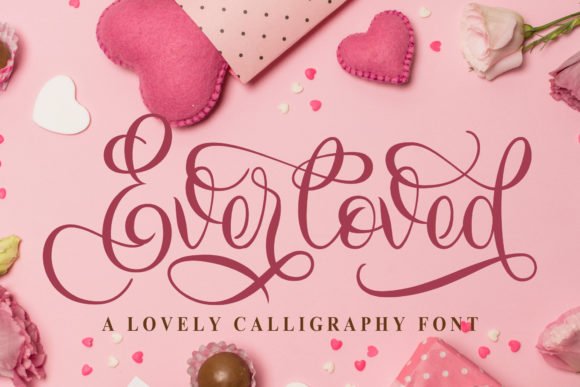
The Ultimate Design Companion: Everloved Font
You know that moment when you’re brainstorming ideas for a design project and suddenly, everything clicks into place? You envision a beautiful, elegant font that perfectly captures the essence of your concept. For designers, finding the right font can be a game-changer, and that’s exactly where the Everloved Font comes in.
This modern calligraphy font is a loving tribute to the classic scripts of the past, with a fresh and modern twist that’s sure to elevate any design project. Whether you’re working on a wedding invitation, a logo, or a social media campaign, the Everloved Font is the perfect companion to help you create something truly special.
What makes the Everloved Font so valuable for designers is its unique blend of style and versatility. With its elegant, flowing lines and subtle flair, it’s the perfect choice for any project that requires a touch of sophistication and whimsy.
Everloved Font Key Features
- Font Family: Everloved Font offers a range of 6 fonts, including Everloved, Everloved Bold, Everloved Italic, Everloved Bold Italic, and two additional weights.
- Character Set: Supports a wide range of languages, including Latin, Cyrillic, and Greek alphabets, making it suitable for global design projects.
- Unique Characteristics: The Everloved Font features a unique, hand-drawn style with subtle imperfections, giving it a warm and personal touch, perfect for branding, advertising, and editorial design.
Everloved Font Review
As a designer, I’ve had the chance to work with the Everloved font, and I must say it’s been a mixed bag. ✨ On the positive side, the font’s unique combination of elegance and playfulness makes it perfect for projects that need a touch of sophistication without being too formal. I’ve used it for branding, packaging, and even wedding invitations, and it always looks great. The font’s high x-height and strong vertical stress also make it highly legible, which is a must for any font.
However, there are some limitations ⚠️ that I need to mention. One of the biggest issues I’ve encountered is the font’s weight consistency. While the regular and bold weights are great, the light weight can sometimes look too thin and fragile, which can be a problem when using it for body text. Additionally, the font’s punctuation marks are not as detailed as I would like, which can make it look a bit amateurish.
Overall, I would say that the Everloved font is a solid choice for projects that need a touch of whimsy and elegance. While it’s not perfect, its strengths far outweigh its weaknesses, and I would definitely recommend it to other designers.
- ✨ Great for projects that need a touch of sophistication without being too formal
- ✨ Highly legible due to high x-height and strong vertical stress
- ⚠️ Weight consistency can be a problem, especially with light weight
- ⚠️ Punctuation marks could be more detailed
The Everloved Font is ideal for:
- Personalized gifts and keepsakes.
- Designing quotes and inspirational messages.